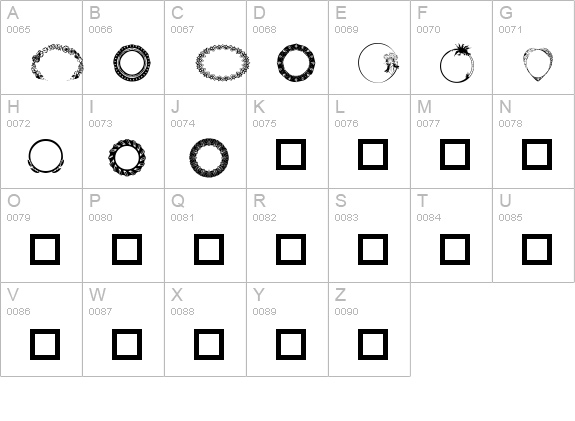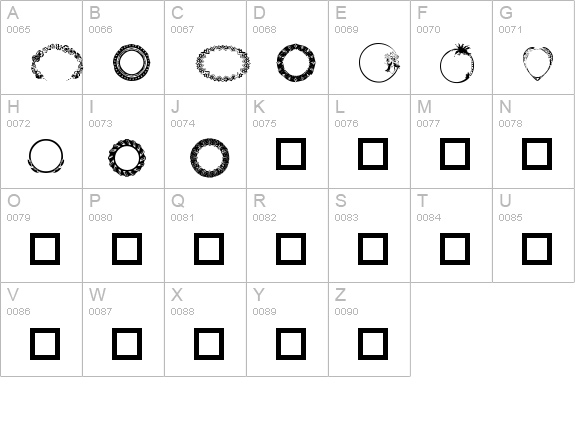
Destinys Border Dings Font Details
Destinys Border Dings font is a charming and versatile typeface that adds a touch of elegance to any design project. With its intricate border elements, this font is perfect for creating decorative headings, invitations, and other creative projects. The delicate details and unique flourishes of Destinys Border Dings font make it a standout choice for those seeking to add a special touch to their designs. What's even better is that Destinys Border Dings font is available for free download at FontsMarket.com. So go ahead and elevate your designs with this stunning font without any cost. Add a touch of sophistication and beauty to your projects with Destinys Border Dings font today!